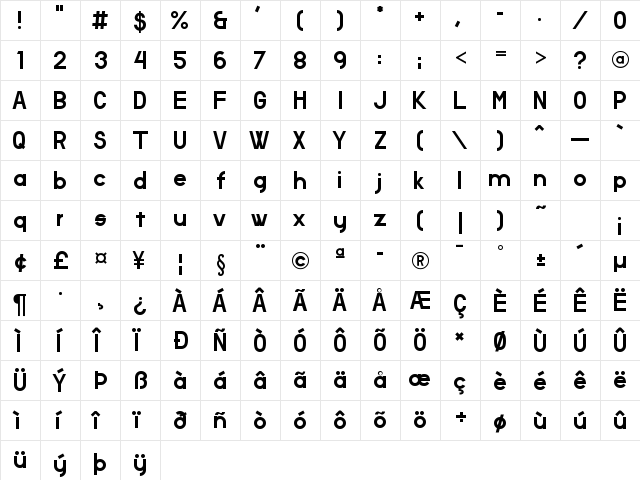
538Lyons V2 Regular
Design Context for 538Lyons V2 Typeface
538Lyons V2 takes a measured approach to typography — its balanced proportions and neutral character make it a reliable workhorse for both digital and print work.